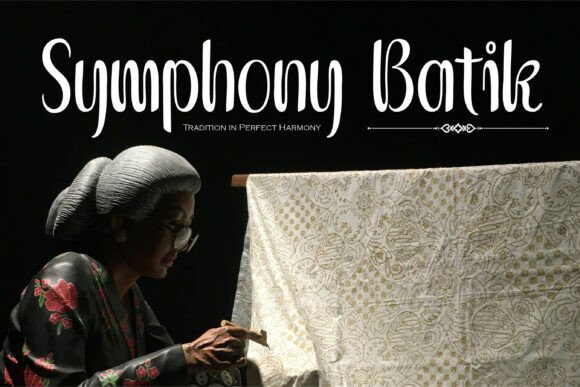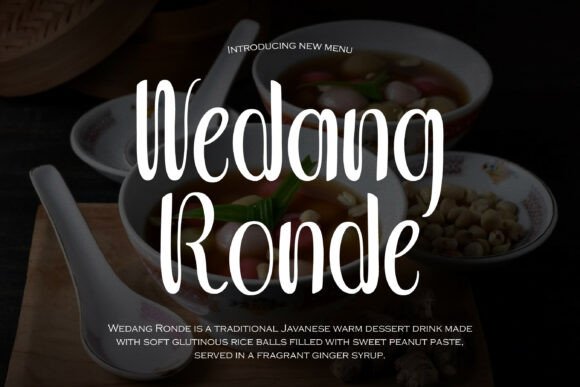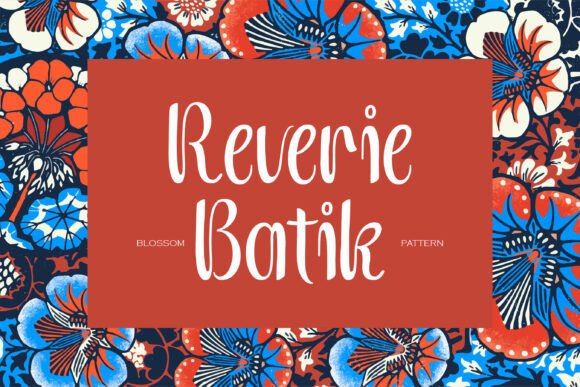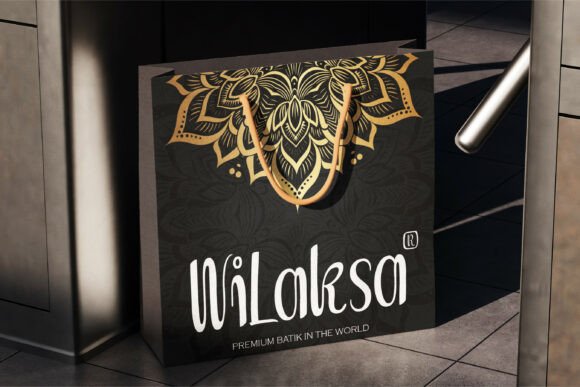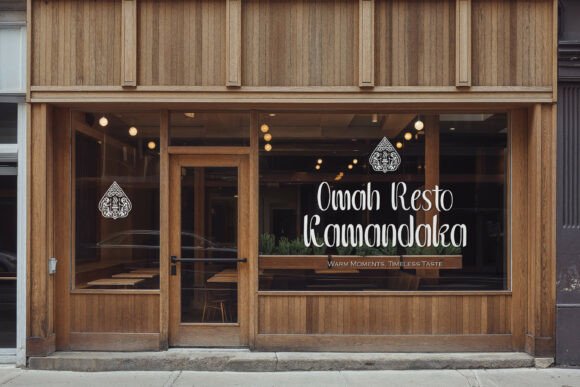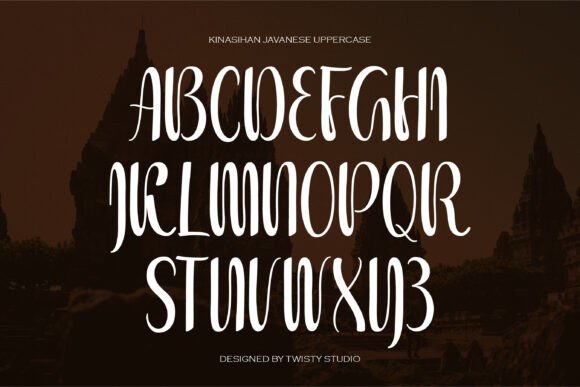
Introduction to Kinasihan Font
As a designer, there’s nothing quite like the thrill of stumbling upon a unique design resource that instantly elevates your creative project. For me, that moment came when I discovered the Kinasihan Font, a stunning display typeface that effortlessly blends traditional Javanese aesthetics with modern flair.
What I love most about Kinasihan Font is its ability to capture the essence of cultural heritage while feeling refreshingly contemporary. With its artistic curves, ethnic-inspired details, and expressive letterforms, this font is perfect for designers seeking to add a touch of authenticity and elegance to their work.
Whether you’re working on a project that requires a high-quality display font or simply looking for a unique design element to add some visual interest, Kinasihan Font is an invaluable resource that’s sure to leave a lasting impression.
Key Features of Kinasihan Font
- Unique Filipino-inspired design, perfect for creative projects and cultural events
- Designed with a clean and modern aesthetic, suitable for a wide range of creative projects and applications
Honest Review: Kinasihan Font
I recently stumbled upon the Kinasihan Font and was excited to give it a try. As a designer, I’m always on the lookout for new design resources that can help elevate my creative projects.
One of the standout features of the Kinasihan Font is its high quality design. The font is crisp and clean, making it perfect for use in logos, titles, and other design elements where readability is crucial. ✨
Here are some of the key benefits of the Kinasihan Font:
- Perfect for logos, titles, and other design elements
My only criticism is that the font may not be suitable for use in very small sizes, as the details can become blurry. ⚠️ However, this is a minor limitation and doesn’t detract from the overall quality of the font.
Overall, I’m impressed with the Kinasihan Font and would definitely recommend it to fellow designers. It’s a great addition to any design resource library and can help take your creative projects to the next level.
Tips for Getting the Most Out of Kinasihan Font
Kinasihan Font is ideal for use in logos, branding, and marketing materials. Its unique design makes it perfect for creative projects that require a touch of elegance and sophistication.